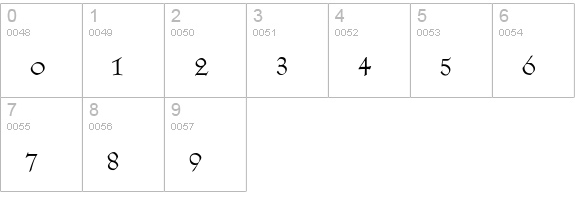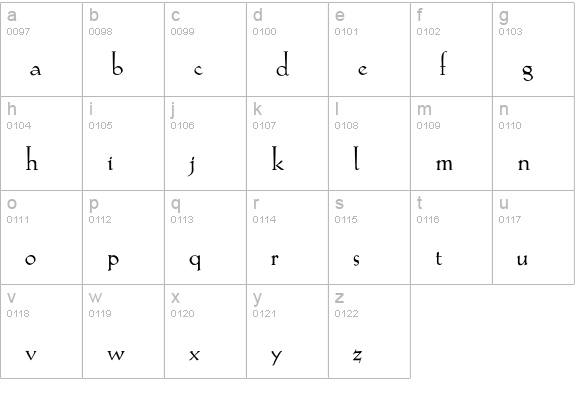
KochRead Font Details
KochRead font is a modern and elegant typeface designed for enhancing readability and visual appeal in various design projects. With its clean lines and balanced proportions, KochRead is the perfect choice for both digital and print applications. This versatile font offers a sophisticated yet approachable look that is sure to captivate readers. Best of all, KochRead is available to download for free at FontsMarket.com. So whether you're working on a website, a magazine layout, or any other creative project, you can easily access this high-quality font without breaking the bank. Don't miss the opportunity to elevate your designs with the timeless charm of KochRead font. Download it today and unleash your creativity!